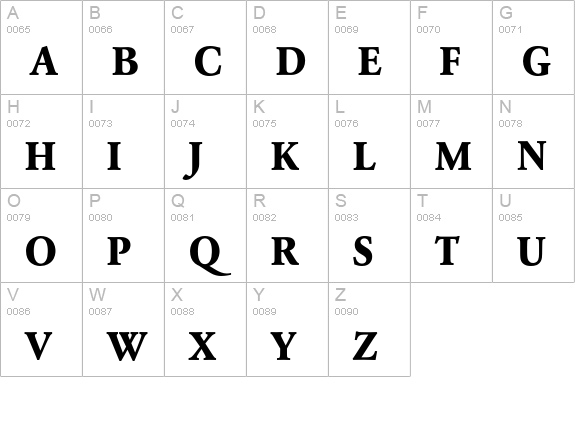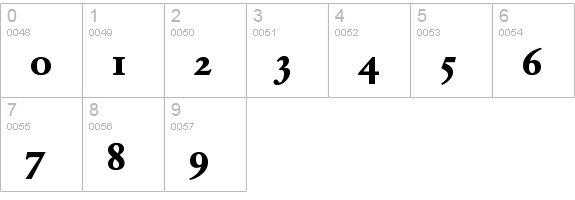
Garamond ExpBQ BoldOsF font is a stunning and elegant typeface that embodies the classic beauty and timeless sophistication of the Garamond font family. With its bold weight and exquisite details, this font is perfect for capturing attention and making a statement. The Garamond ExpBQ BoldOsF font features a harmonious blend of sharp serifs and graceful curves, creating a visually pleasing and legible design. Its bold nature adds a touch of confidence and strength to any typographic project, making it suitable for a wide range of applications, from headlines and titles to logos and branding. One of the most appealing aspects of Garamond ExpBQ BoldOsF font is that it is freely available to download at FontsMarket.com. This means that designers and typography enthusiasts can easily access and incorporate this exceptional font into their creative projects, without any cost or restrictions. Whether you are working on a professional design project or simply want to enhance your personal creations, Garamond ExpBQ BoldOsF font is a versatile and powerful tool that will elevate your typography to new heights. Its timeless appeal and bold presence will captivate audiences and leave a lasting impression. Download it for free at FontsMarket.com and experience the beauty and versatility of Garamond ExpBQ BoldOsF font today.